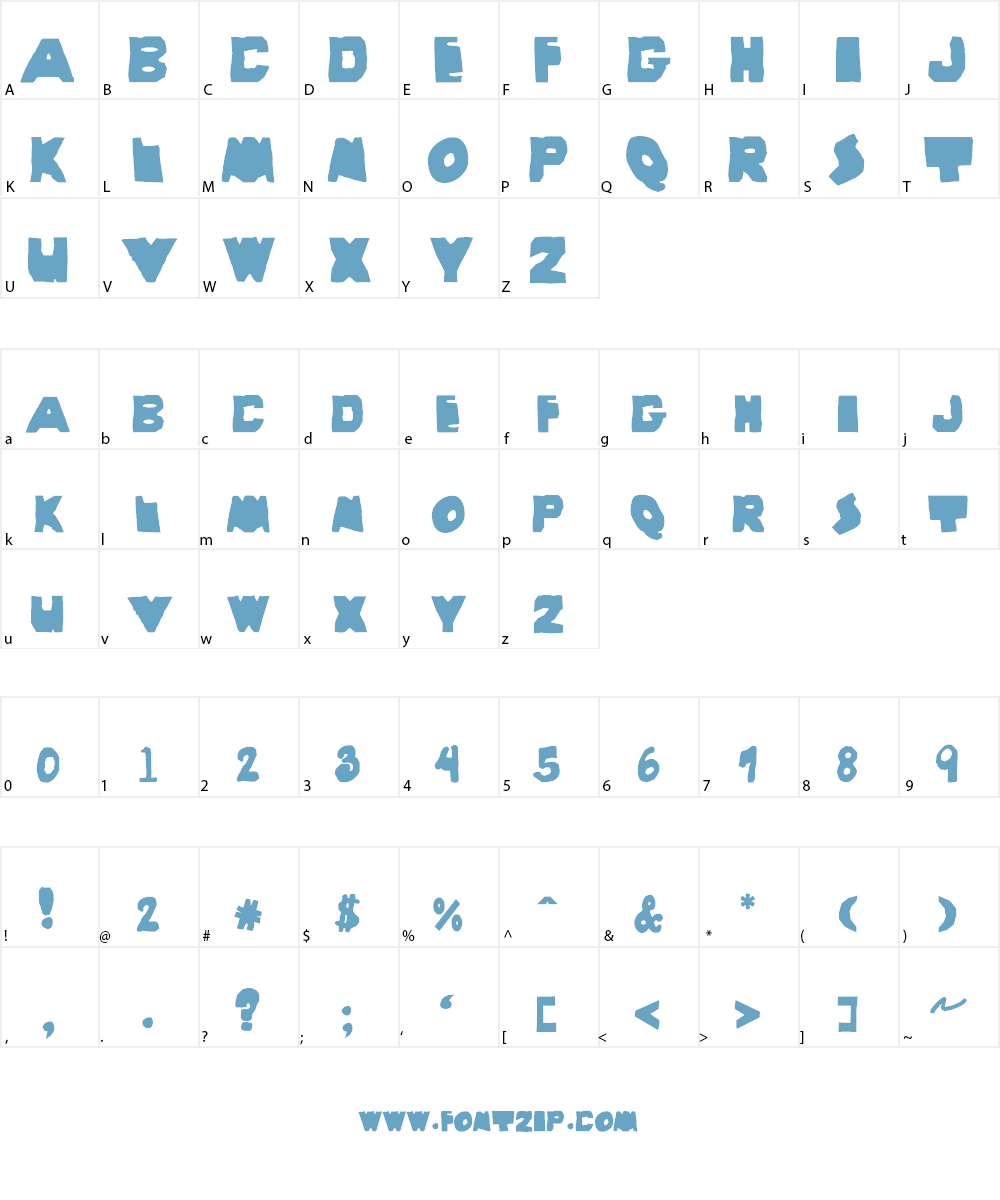
This is Wayzgoose Block, my newest font. It is inspired by a caption for a picture in an early 1900s newspaper. It is meant to imitate the old letterpress technique, which would have been how that paper was printed.
Wayzgoose Strut is all the caps from Wayzgoose Block in two heights (struts).